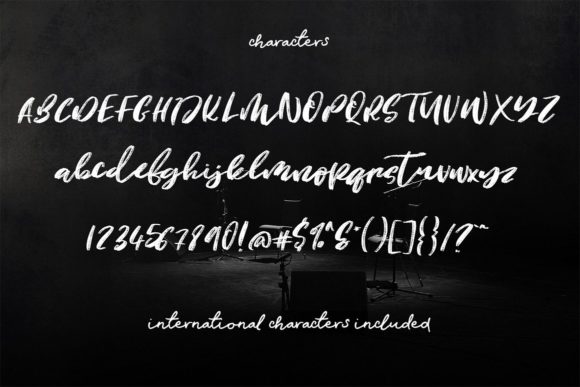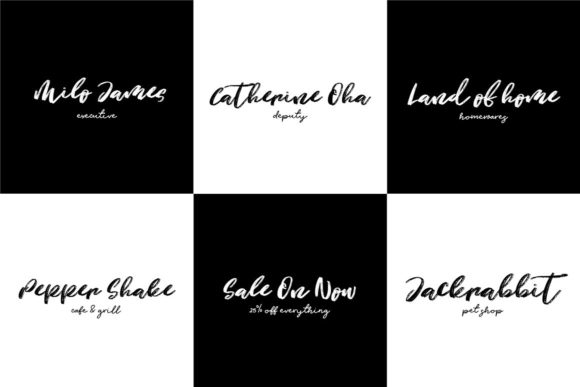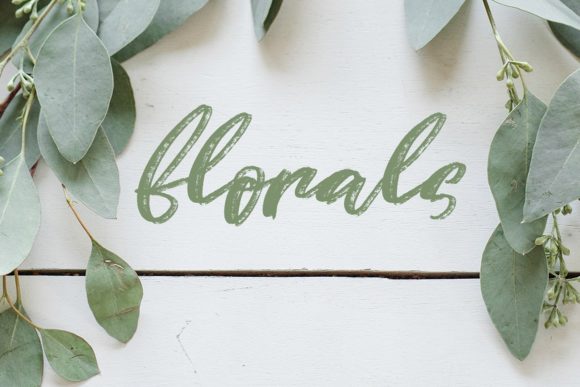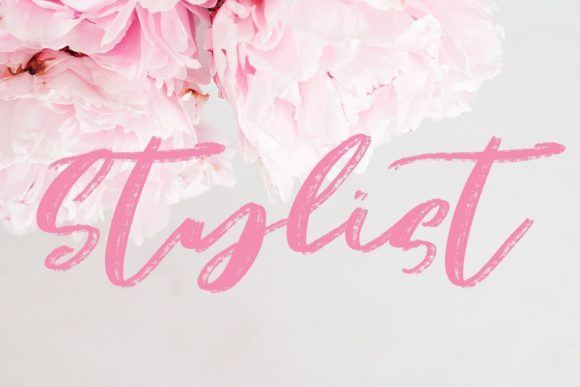
Justify Font
About Justify Font
The Justify is a super textured hand brushed script font.
It can be used for so many awesome uses such as quotes, Instagram posts, advertising, logos, invites, weddings, and much much more!